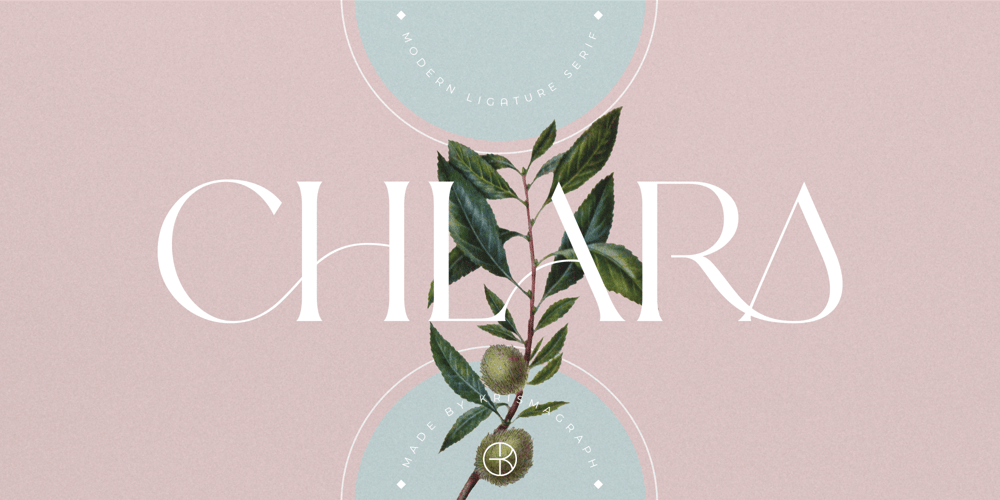
Chlara Typeface Font Family was designed by Ratna Krismawati and published by Krismagraph. Chlara Typeface contains 1 styles and family package options. Chlara is a Modern Ligature Serif Font. It’s soft curves mixed with high contrast glyphs, give it a feminine and masculine quality. It comes with epic ligatures and alternates. Great in layout design for quotes or body copy, best used as a display for headings, logos, branding, magazines, product packaging and invitations.Accessible in the Adobe Illustrator, Adobe Photoshop, Adobe InDesign, even work on Microsoft Word. PUA Encoded Characters – Fully accessible without additional design software. Fonts include multilingual support Image used : All photographs/pictures/vector used in the preview are not included, they are intended for illustration purpose only. Feel free to follow, like and share. Thanks so much for checking out my shop!If you need a custom license or have questions, please email to: krismagraph@gmail.com